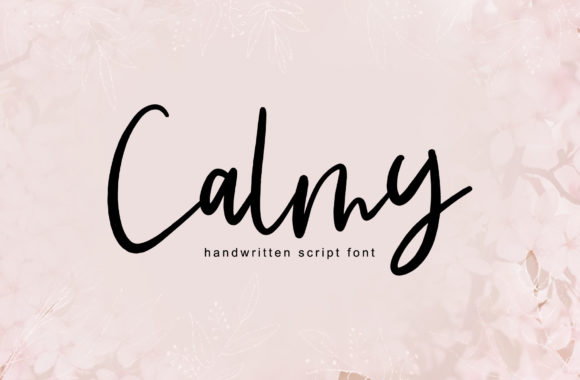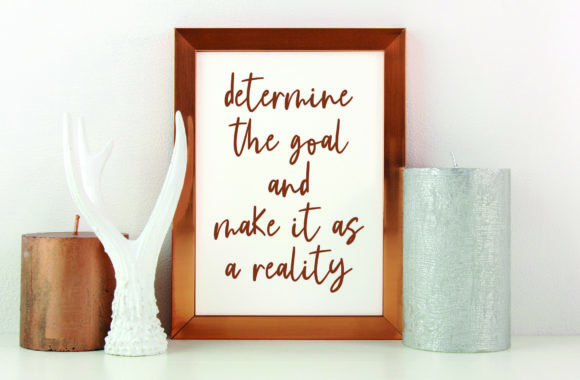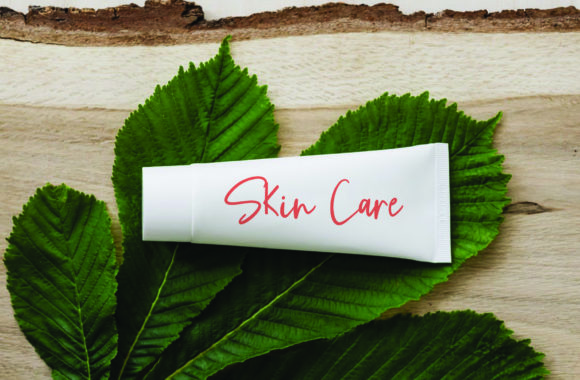
About Calmy Font
Calmy is a simple, asymmetrical and relaxed handwritten font. Featuring characters that dance along the baseline, this font will add a luxury spark to any design project that you wish to create!